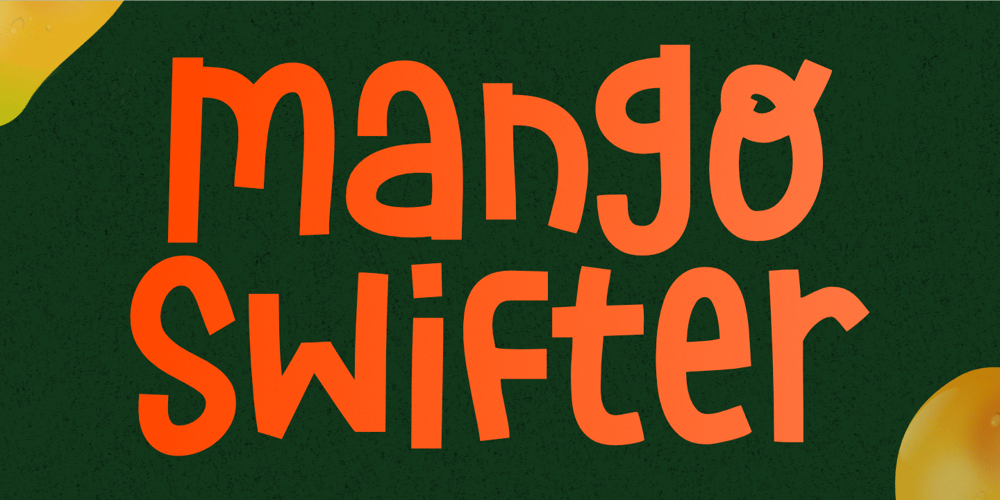
Mango Swifter Font Family was designed by Aldy Sidik, Nurul Hidayani and published by Olivetype. Mango Swifter contains 1 styles and family package options. Mango Swifter is a fun and playful display font that’s perfect for logotypes, headlines, and product packaging. It’s bold and eye-catching, and it will add a touch of personality to any design.So what’s included : Basic Latin Uppercase and Lowercase Numbers, symbols, and punctuations Multilingual Support. PUA Encoded and fully accessible without additional design software Simple Installations Works on PC & Mac Thank You.